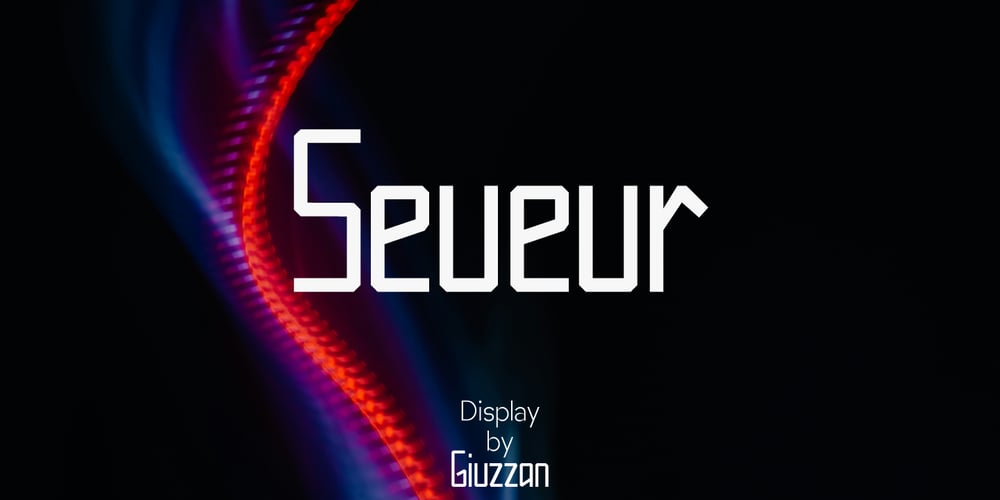
Seueur
Seueur font
Seueur Font Family was designed by Muhamad Fauzan and published by Giuzzan. Seueur contains 1 styles and family package options. Seueur is a modern twist on the classic font. It combines timeless geometric precision with contemporary elegance, making it versatile for branding, posters, and more. With a comprehensive character set and a distinctive personality, Seueur is the perfect choice for designers seeking a fresh yet classic typeface.